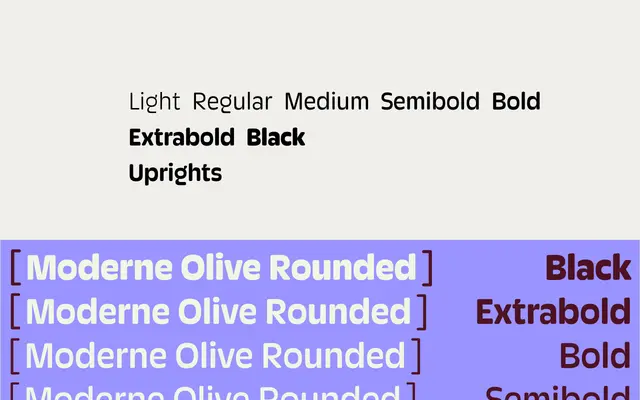
Moderne Olive Rounded
A rounded, reverse-contrast sans by David Březina, grown from the Antique Olive tradition with soft squarish forms and high-tension pinched junctions.
Designed by David Březina and released in 2026, it refines and extends the core variant from Rosetta's experimental Softly Yours project. The reverse-contrast construction follows Excoffon's Antique Olive as a starting point, then diverges through late-modernist regularisation and pinched strokes that ease otherwise heavy junctions. Seven uprights span Light to Black with a matching variable font, and OpenType features include circled numerals, combinable multilingual pictograms, single-storey alternate 'a' and case-sensitive forms.
A reverse-contrast sans-serif in the tradition of Antique Olive by Roger Excoffon, with soft, squarish rounded forms and high-tension pinched stroke junctions that characterise the style.